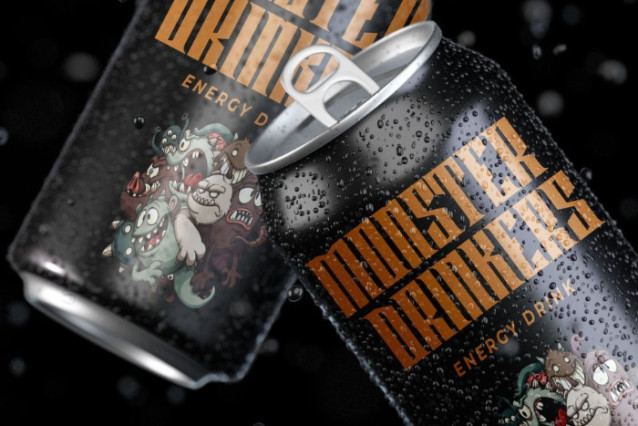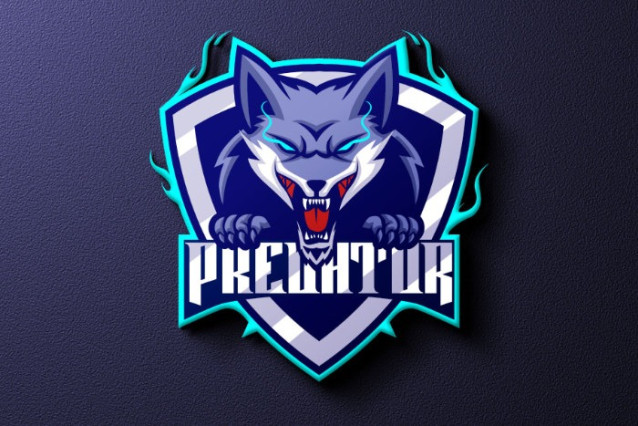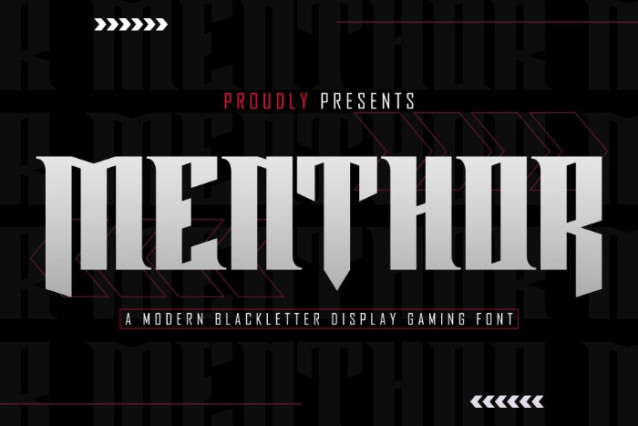
Menthor Font, a modern blackletter display font that redefines boldness and elegance. Perfect for branding and gaming logos, Menthor offers a striking design that commands attention and leaves a lasting impression. Its intricate details and sharp edges make it ideal for projects that require a touch of sophistication and power.
Menthor isn’t just a font; it’s a statement. With various alternatives, you can customize your designs to fit any aesthetic, from medieval to futuristic. Whether you’re creating a brand logo, a gaming title, or even a t-shirt design, Menthor provides the versatility you need to stand out in a crowded market.
This font is perfect for those who want to add a unique flair to their projects. Its powerful and striking design ensures that your work will not only be noticed but also remembered. The elegant curves and bold lines of Menthor make it suitable for a wide range of applications, from corporate branding to fashion and esport logos.
Embrace the epic style of Menthor and elevate your designs to new heights.